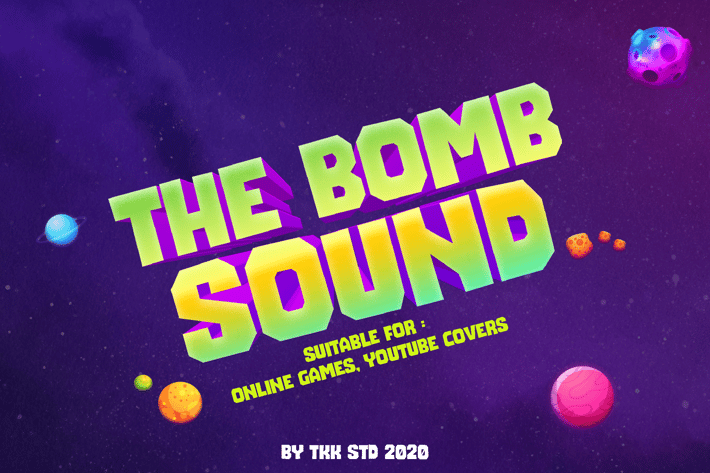
The Bomb Sound - Modern Block Gaming font
The Bomb Sound - Gaming Font
The Bomb Sound is a bold geometric display font built for high-impact visuals and intergalactic fun. Designed with sharp terminals, heavy weight, and minimal counter space, it brings a retro arcade vibe to modern creative platforms. The font's expressive character and blocky, tech-inspired structure make it ideal for loud headlines, attention-seeking UI, and energetic poster design.
It thrives in sci-fi settings, game titles, space-themed branding, and kid-centric products where visual noise is part of the charm. The look is intentionally exaggerated—built for high legibility and instant recognition.
Whether you're crafting a mobile game interface, a YouTube gaming thumbnail, or an outer-space party invitation, The Bomb Sound powers up your message with maximum impact. It speaks directly to young audiences and pop culture fans with bright tones, high contrast, and a nostalgic energy that taps into retro gaming universes, toy boxes, and imaginative play.
Use it in e-learning platforms, toy packaging, sci-fi comics, or video content to boost visual velocity.
Key Features :
Built to Blast Off
- Bold, geometric shapes with consistent rhythm and explosive form
- Inspired by arcade titles and pixel-style game logos
- Perfect for gaming, space themes, tech branding, and children's content
- Works well in uppercase titles, buttons, packaging, and more
Functional & Versatile
- Highly legible even in vibrant or dark backgrounds
- Energetic yet structured—a visual punch without losing clarity